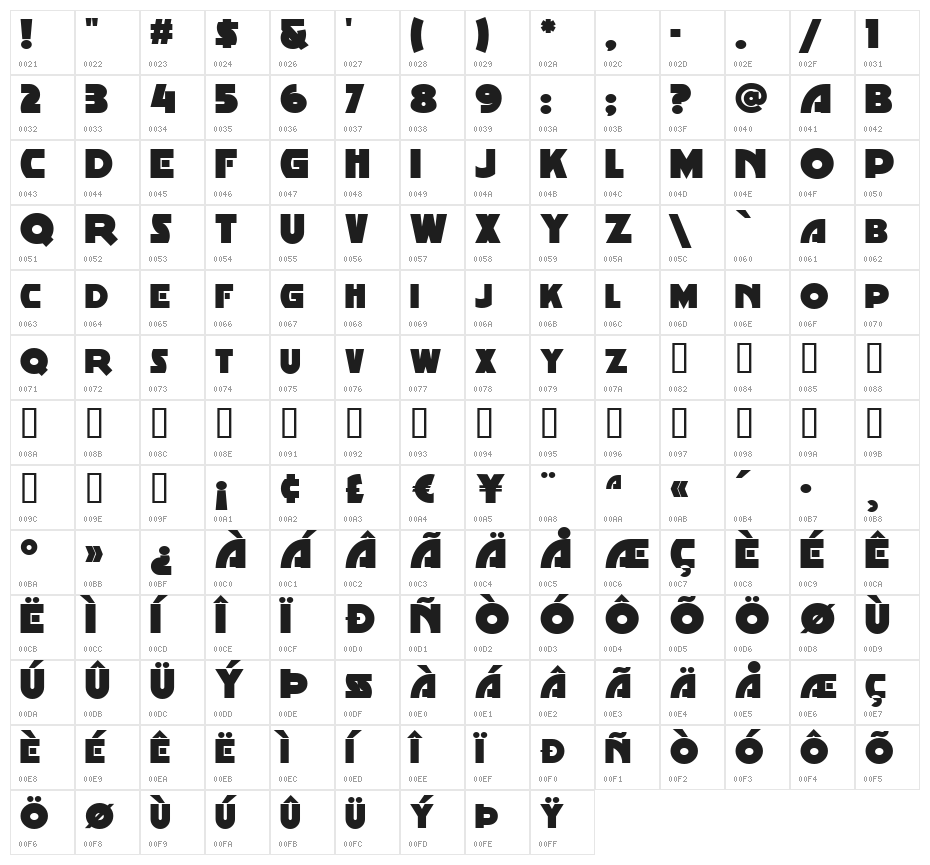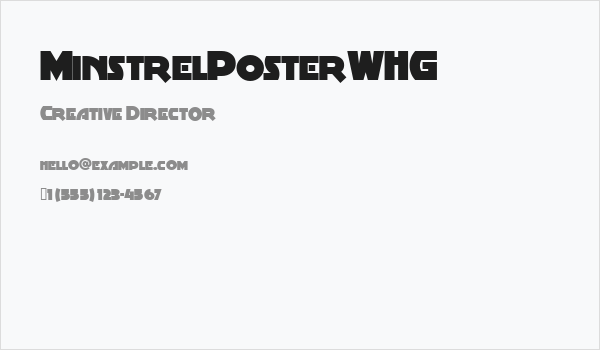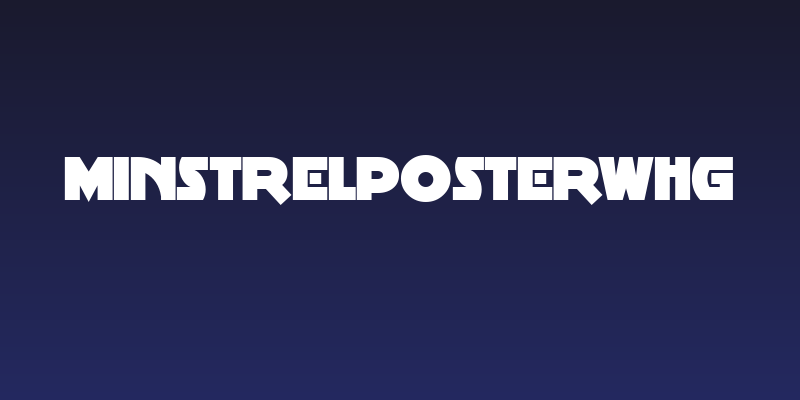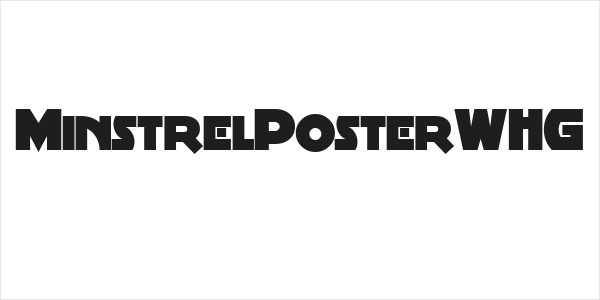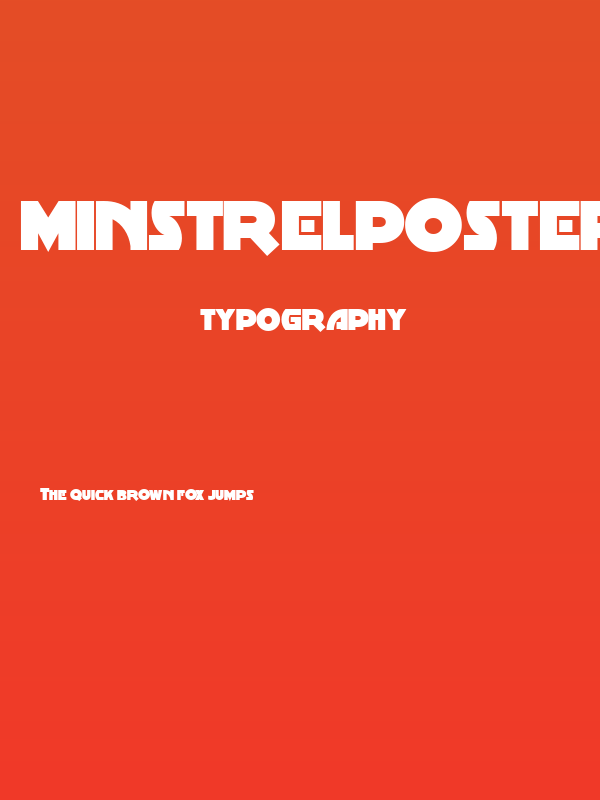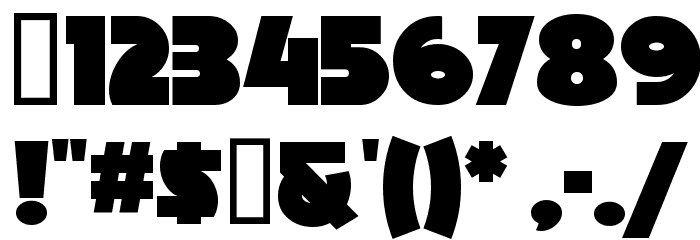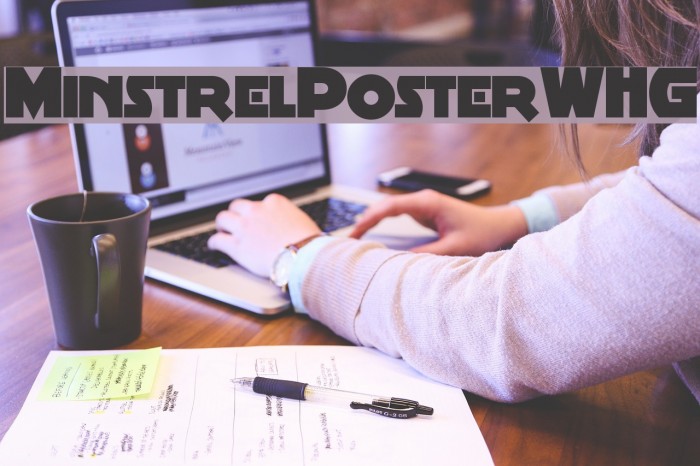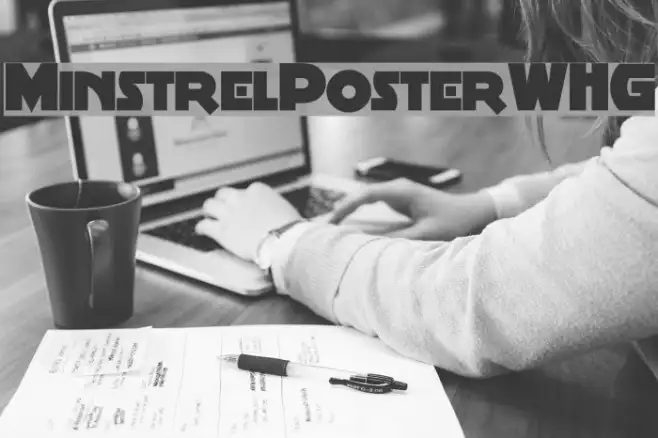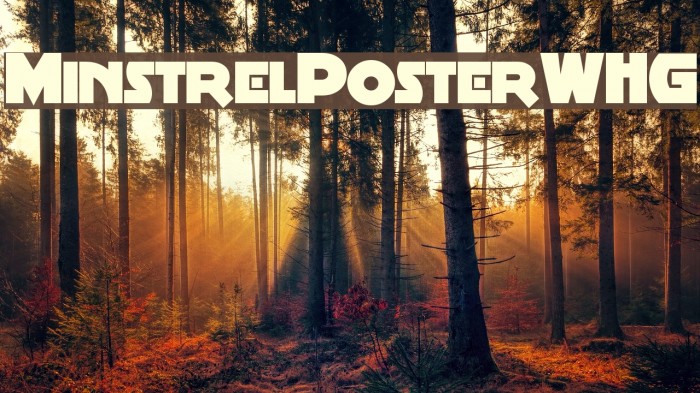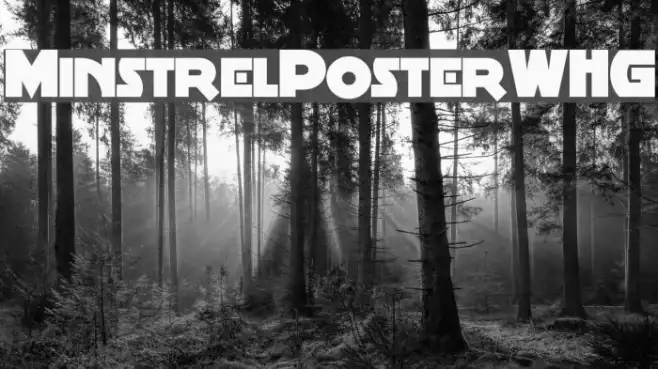
MinstrelPosterWHG Font
MinstrelPosterWHG Description
This font features bold, geometric shapes with a strong, impactful presence. The characters are constructed with thick, uniform strokes, creating a sense of solidity and strength. The angular design and sharp edges give it a modern and futuristic feel, while the consistent weight across all characters ensures a cohesive look. The numbers and special characters maintain the same boldness and geometric style, making them stand out prominently. This font is ideal for creating eye-catching headlines or titles that demand attention.
| Proposed Projects | Ideal for posters, logos, branding, and any project requiring a strong visual impact. |